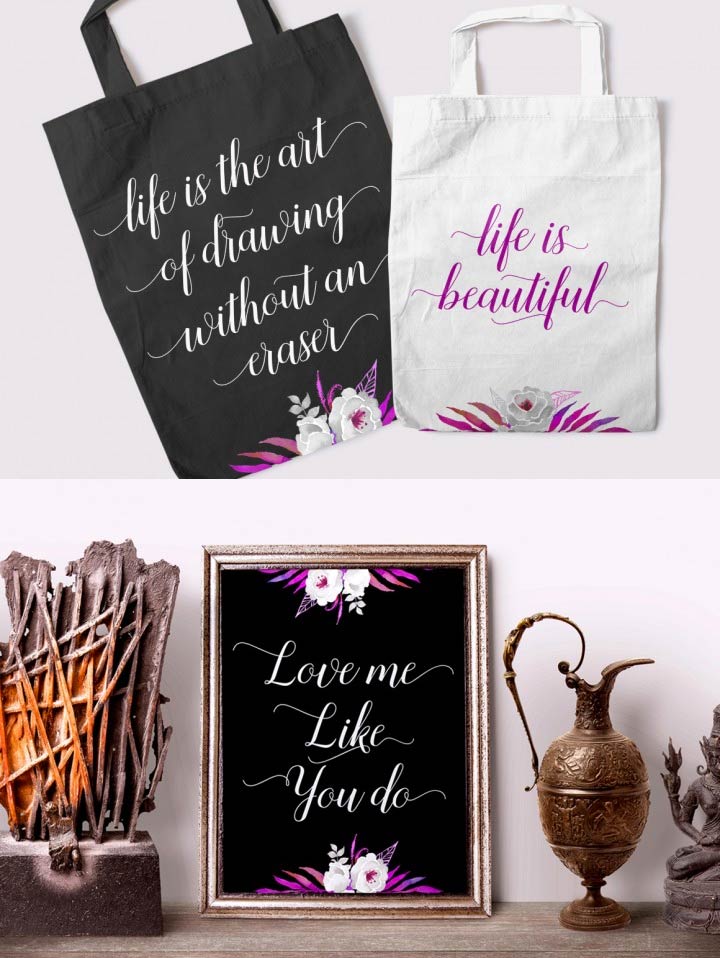
Sandhya Script is a fresh modern script font that works beautifully on invitation cards, prints, branding materials and more! This free font that you can use for personal project comes with standard A-Z characters. You will need to buy the full commercial version to unlock the extra glyphs and curves.
- Category: Calligraphy/Brush, Script